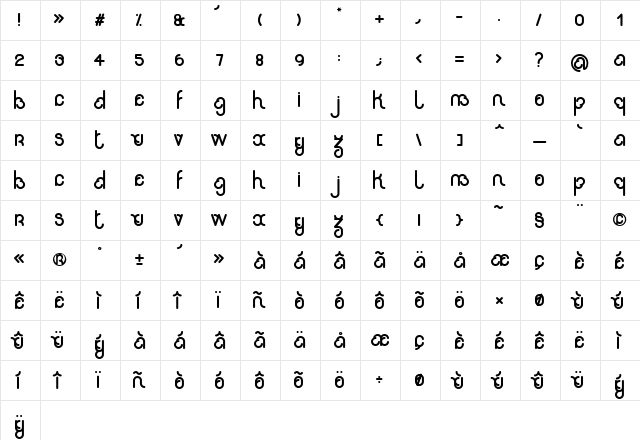
rondi rondi
| Foundry | Ewen Prigent |
| Designer | Ewen Prigent |
rondi takes a measured approach to typography — its balanced proportions and neutral character make it a reliable workhorse for both digital and print work.